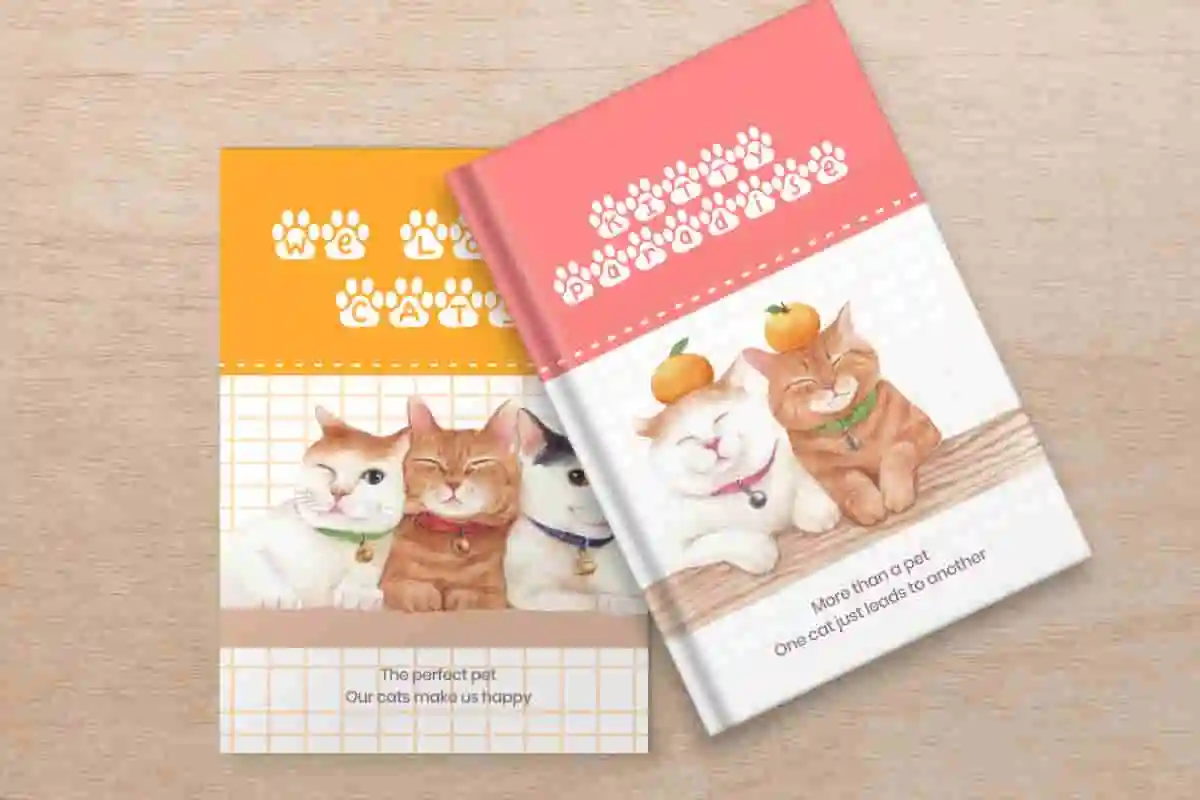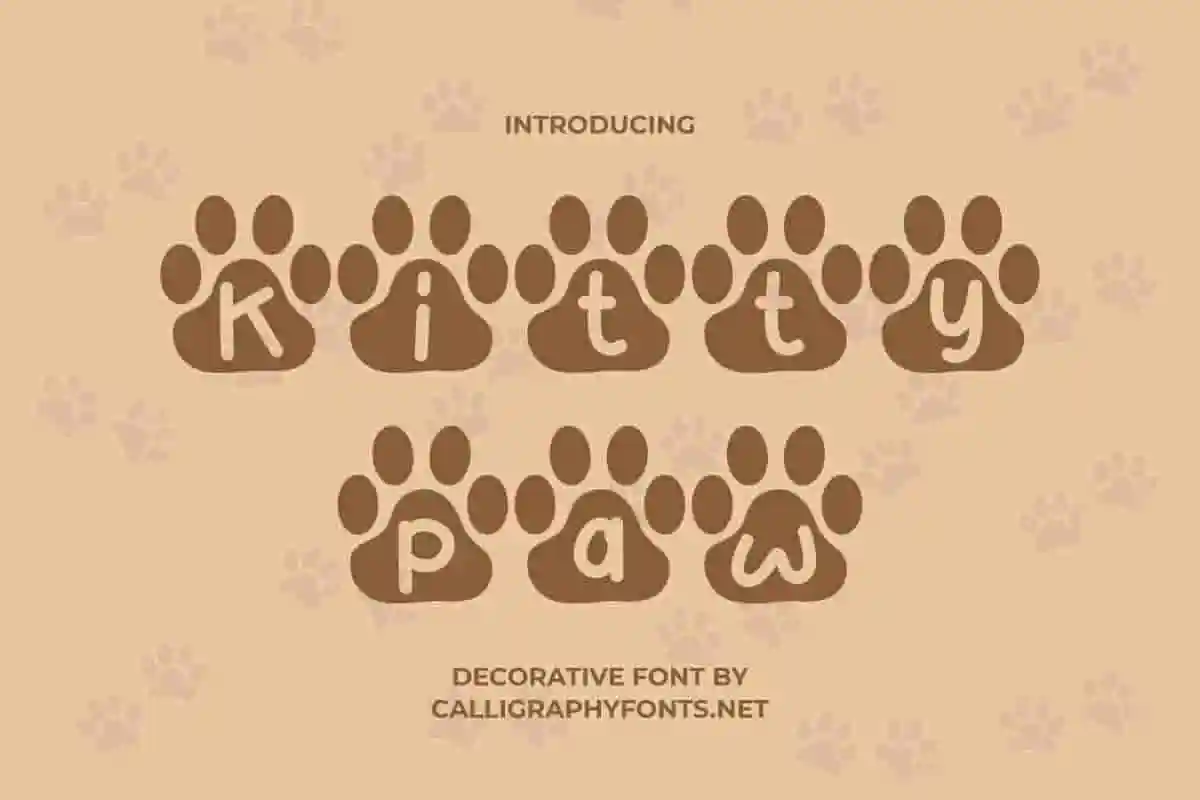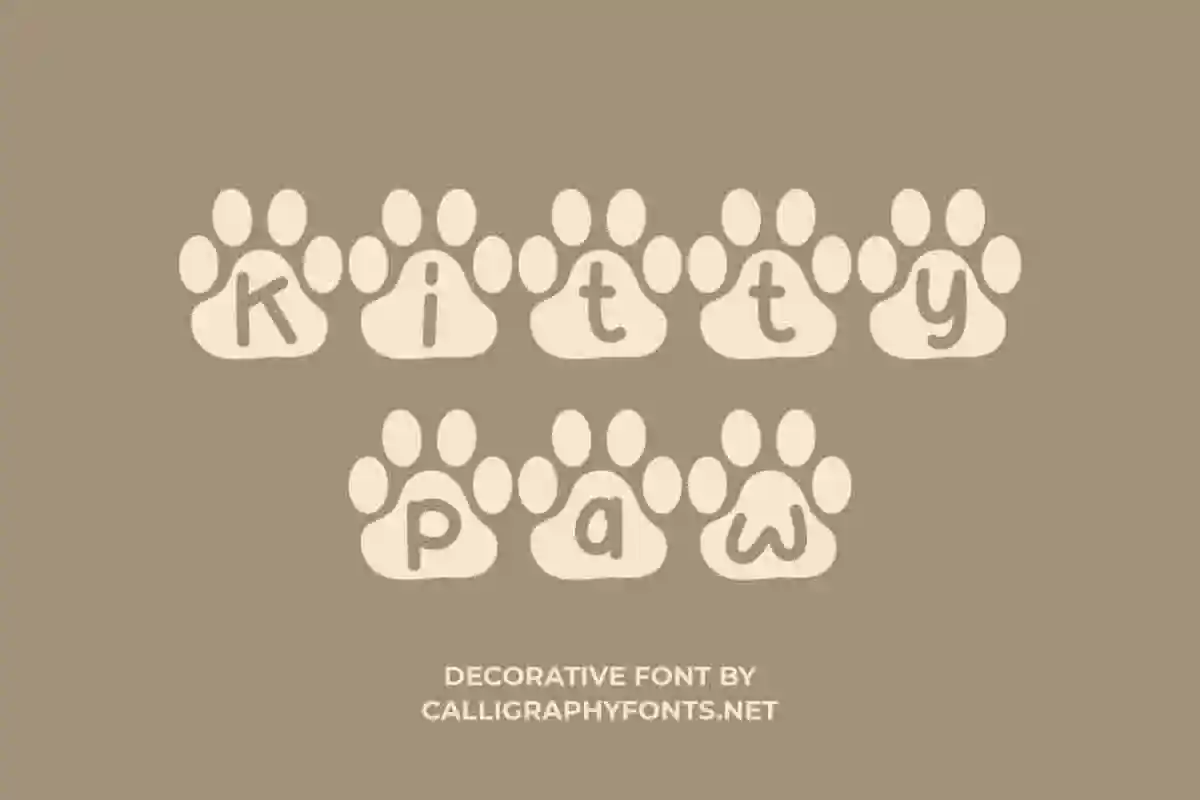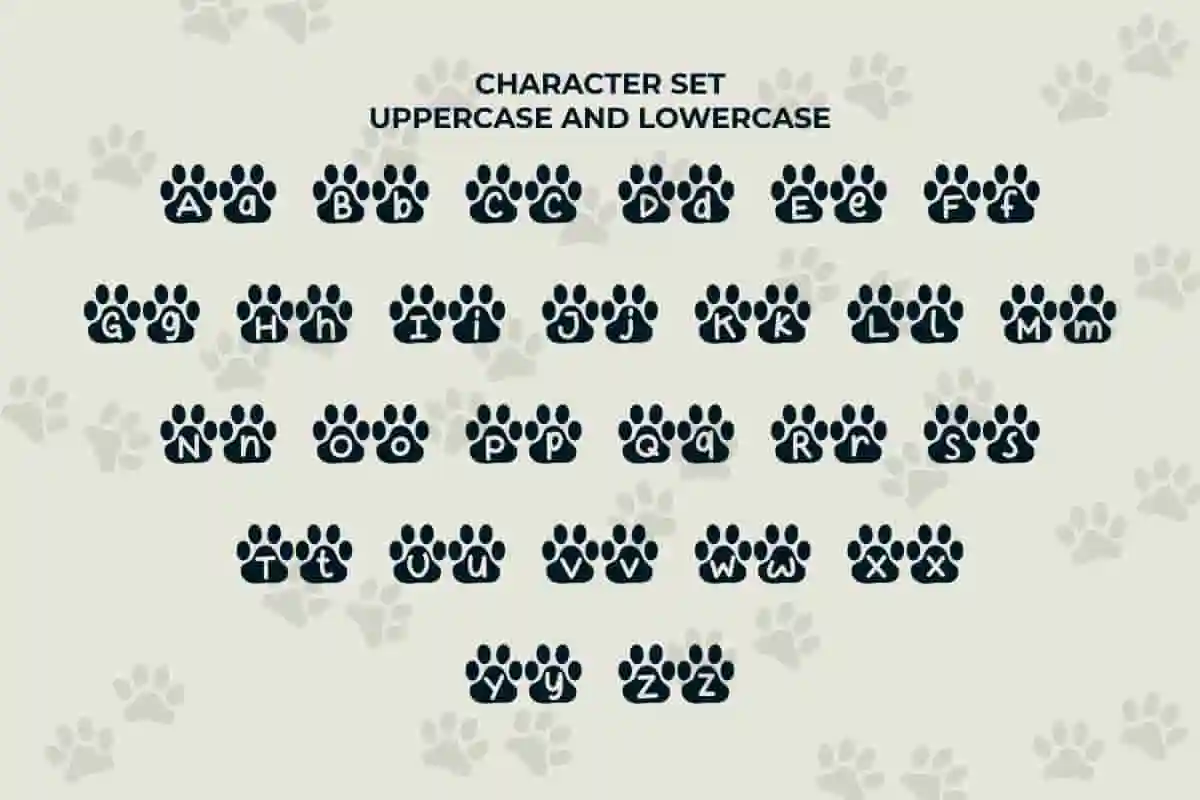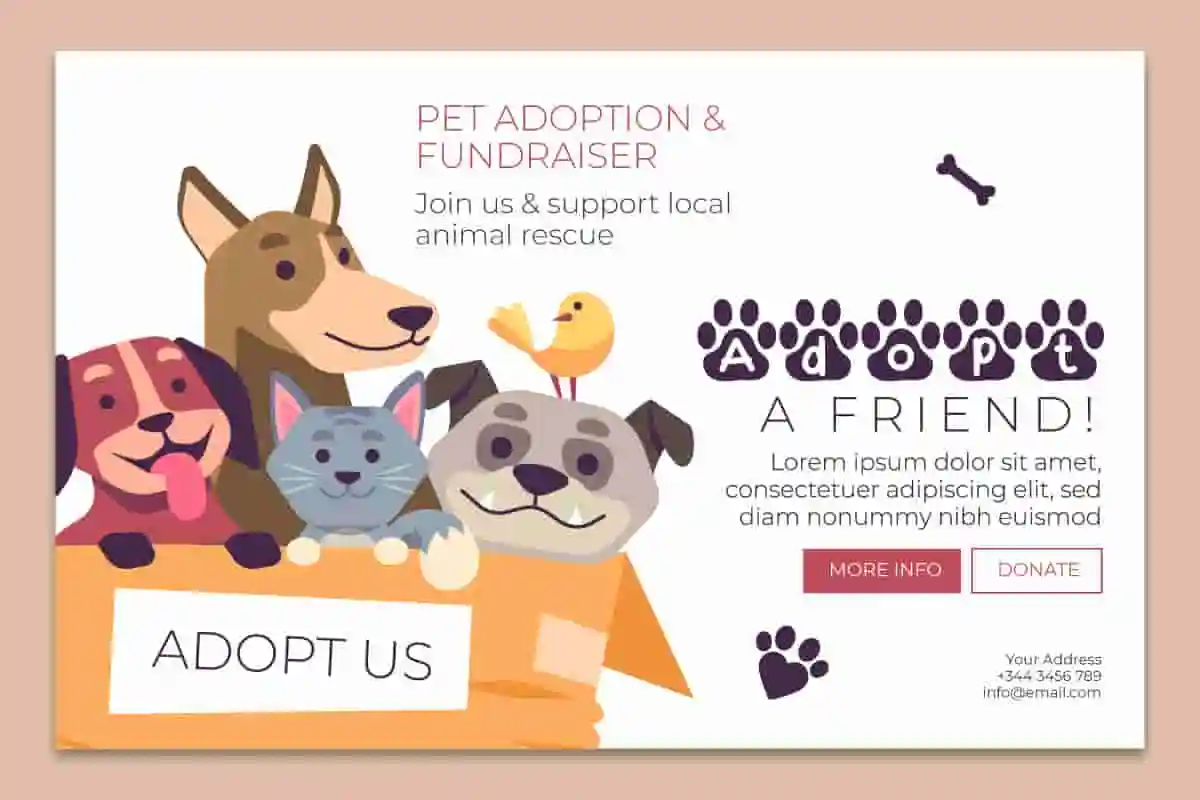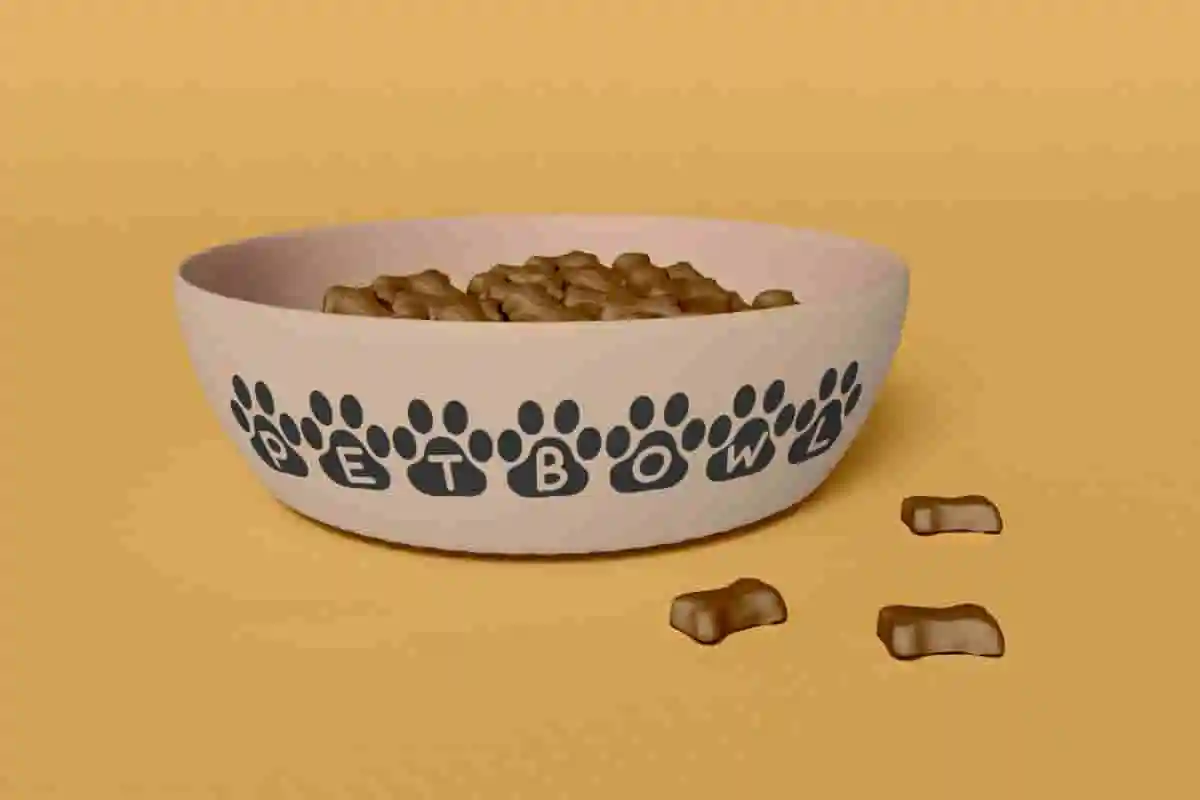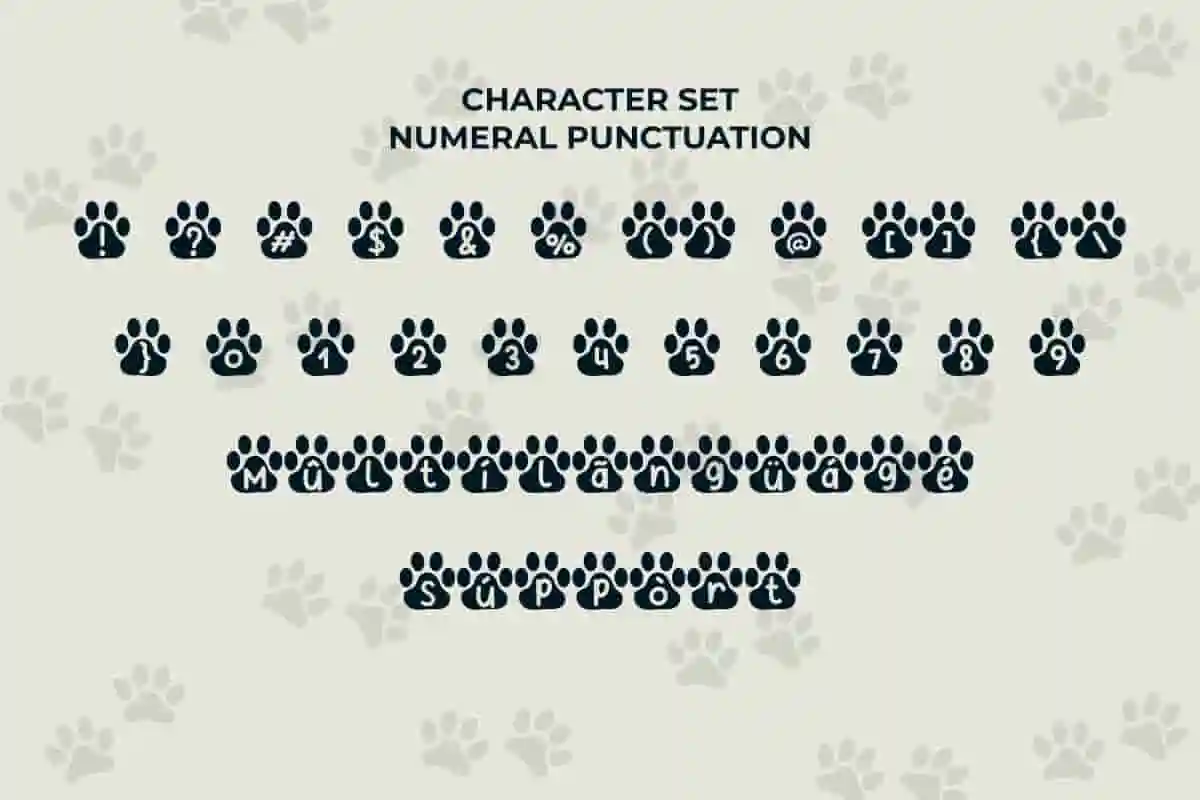
Kitty Paw Decorative Font
Kitty Paw Font is a cute decorative font inspired from the shape of animal paws by CalligraphyFonts.net. It has great characters that will be awesome for branding, music, pet shop, retail, school and many more
Kitty Paw Decorative Font is a fancy font with decorative animal theme style. The font will be awesome for advertising, brands, packaging, etc. Kitty Paw Font will suit many industries and categories related to entertainment, animation or movie, kids, pet shop, etc.  It will work well for books, homewares , packaging, toys etc
Bring a smile to your designs with Kitty Paw Decorative Font, a fun and adorable typeface inspired by the cuteness of cats. Featuring unique paw-print accents and rounded, friendly shapes, this font is perfect for adding a warm and playful touch to your creative projects.
Whether you’re designing children’s books, pet shop branding, greeting cards, or cute packaging, Kitty Paw Decorative Font delivers charm, personality, and irresistible appeal.
With its charming style and friendly personality, Kitty Paw Decorative Font helps your designs feel fun, approachable, and memorable.